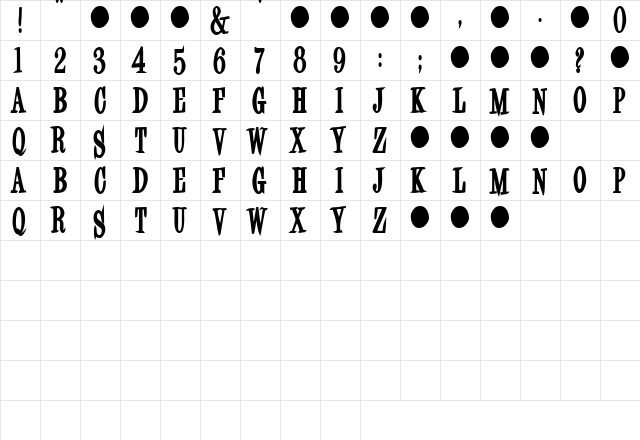
Beechwood45789 Regular
Design Context for Beechwood45789 Typeface
Beechwood45789 echoes the hand-painted signage and woodblock typography of the American frontier, with a warm, rugged personality.
Perfect for barbecue restaurants, country music branding, vintage poster design, and rustic packaging.
Font Pairing: Combine Beechwood45789 with a simple slab or neutral sans — period-accurate companions reinforce the vintage feel without competing for attention.
Pro Tip: Pair Beechwood45789 with aged textures or distressed backgrounds to amplify its vintage personality.